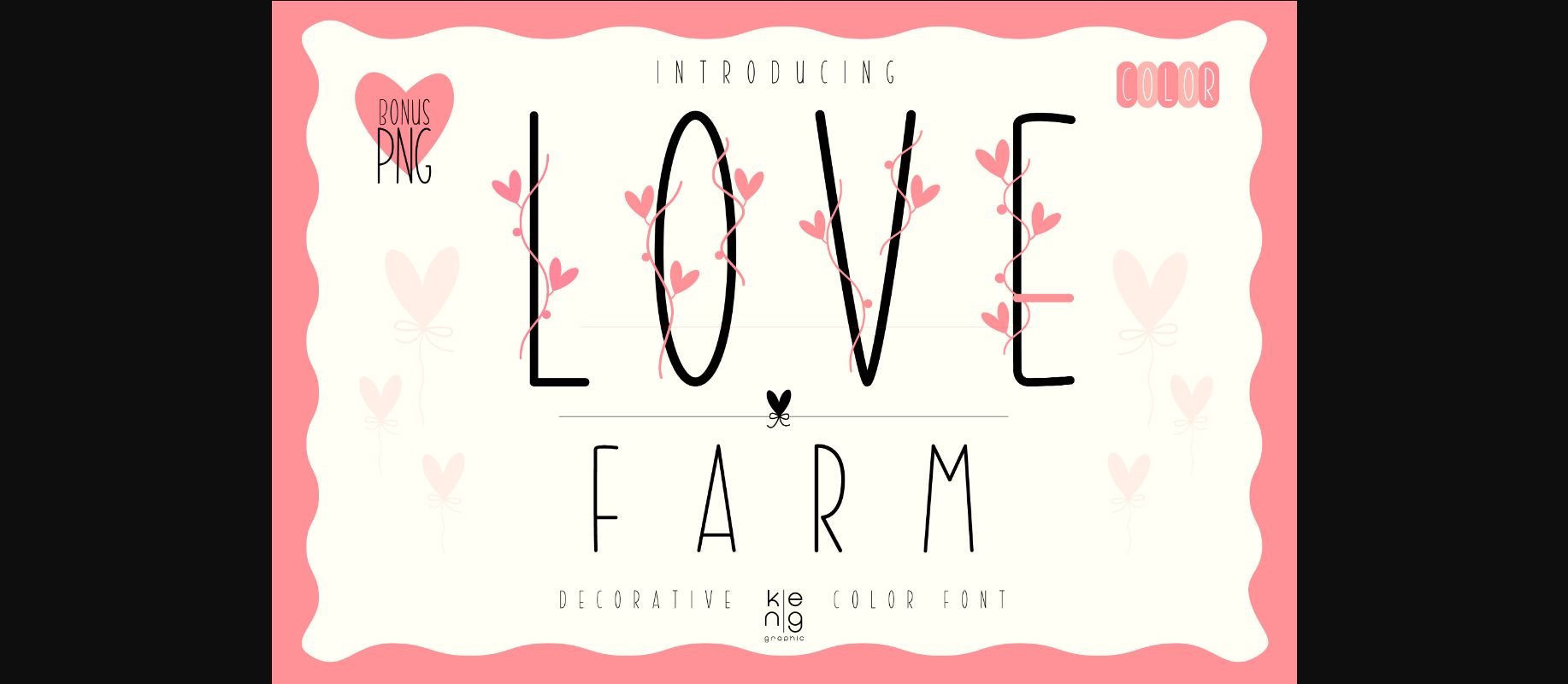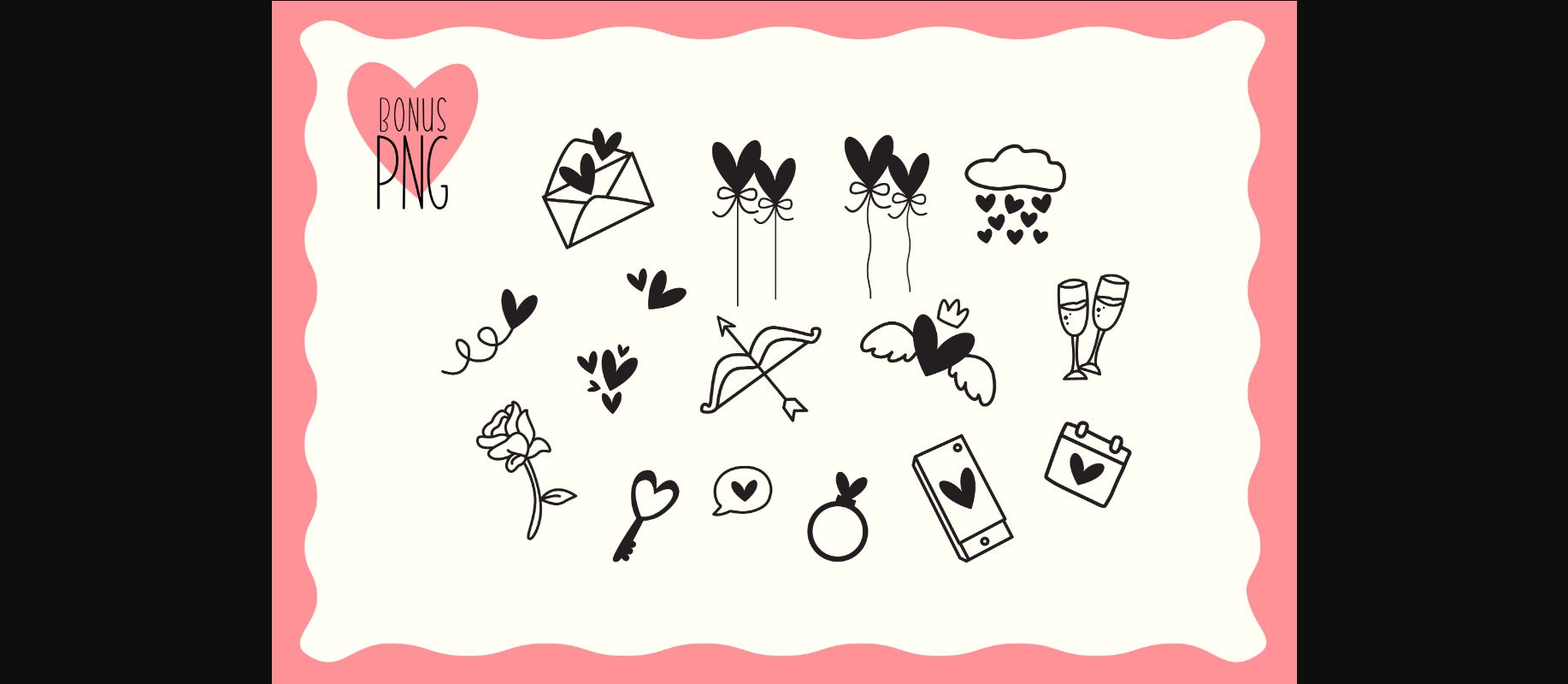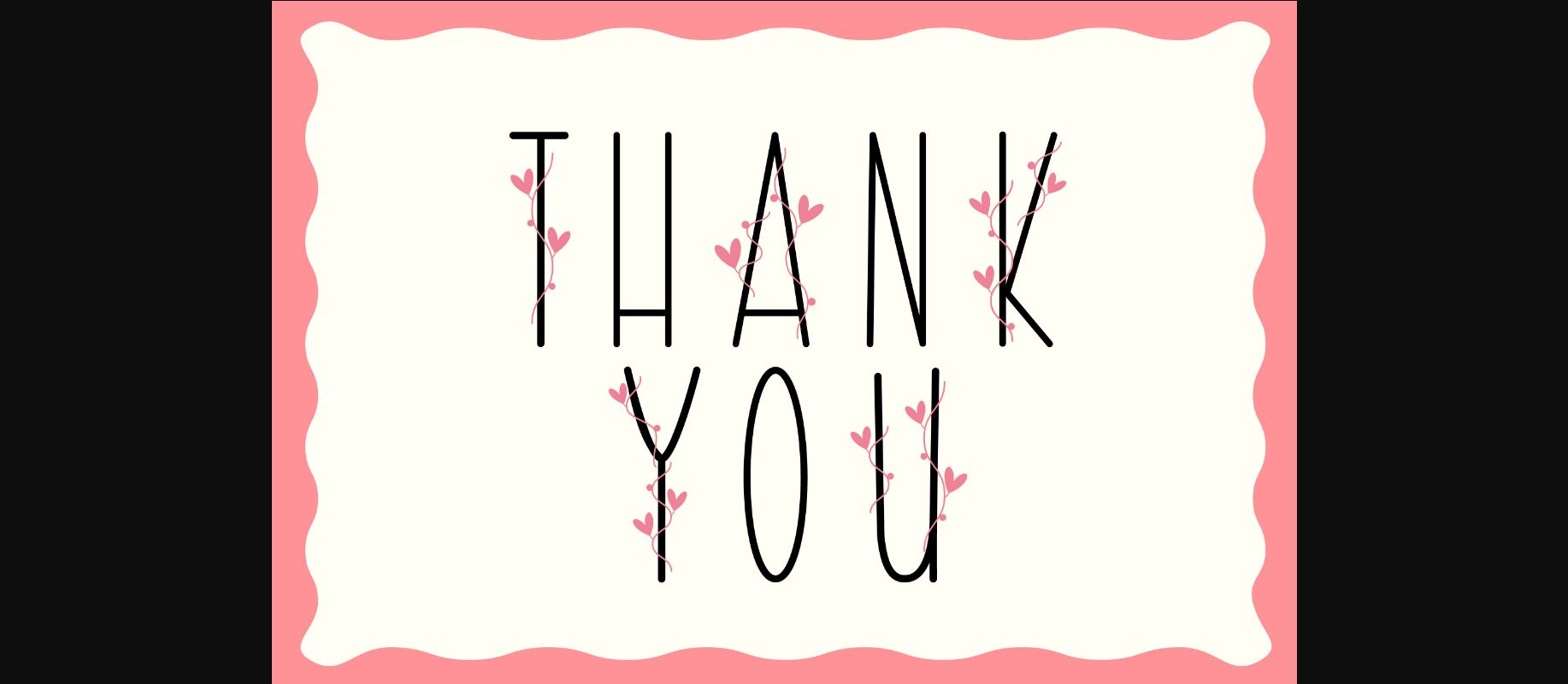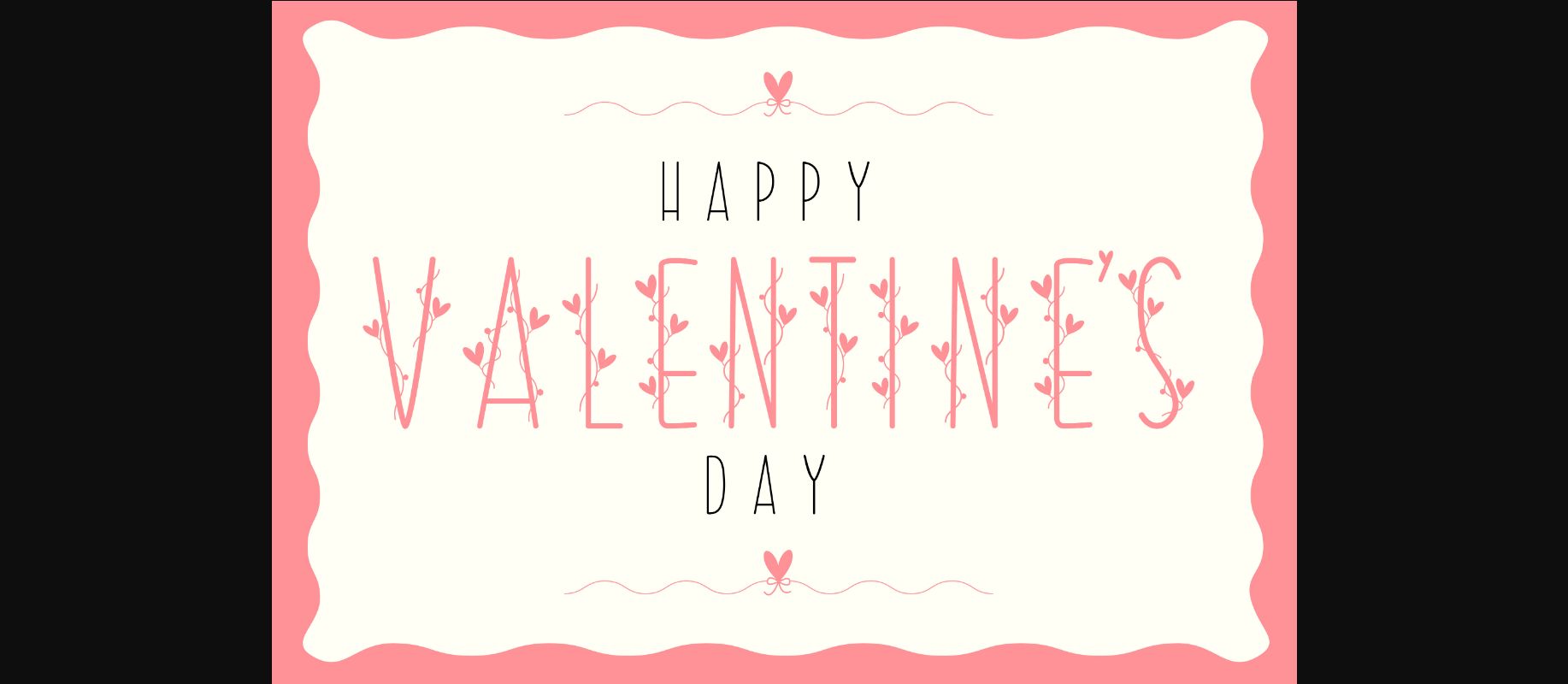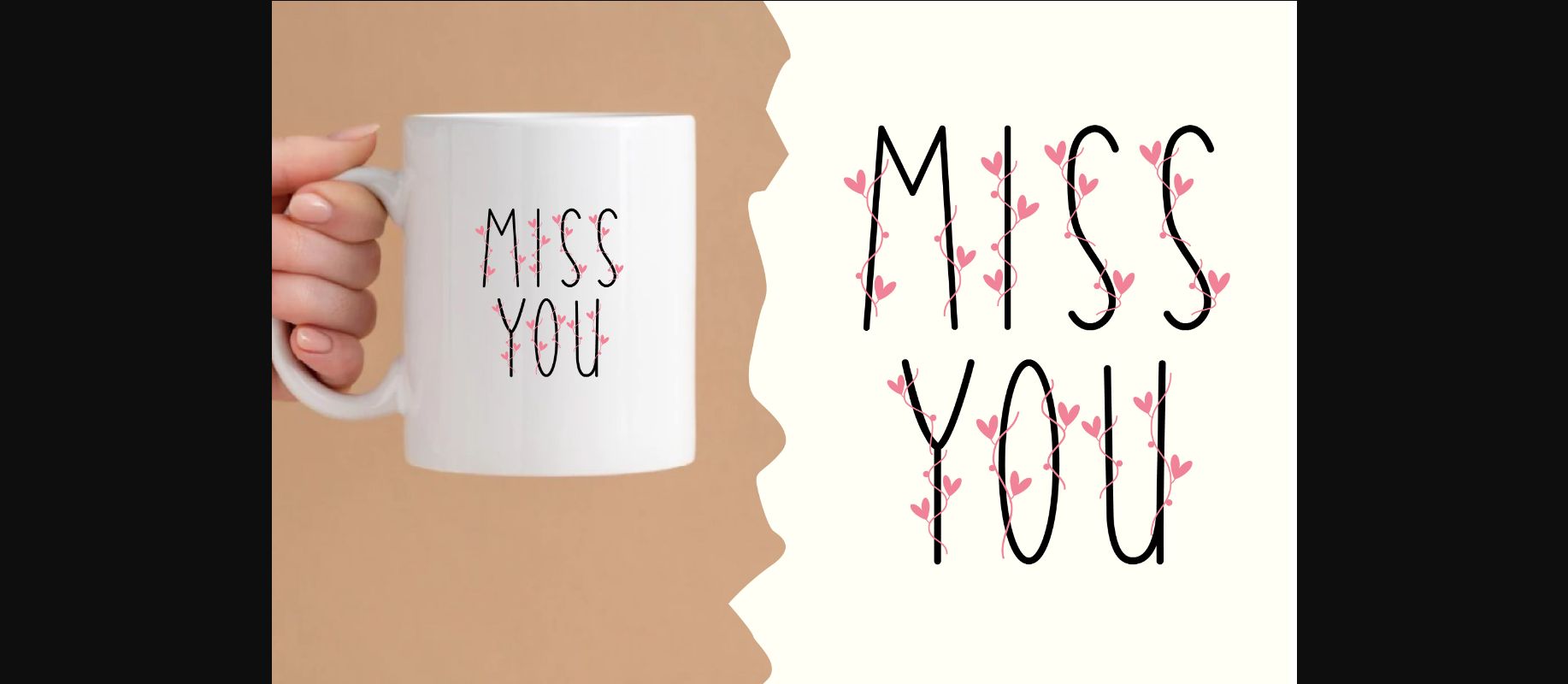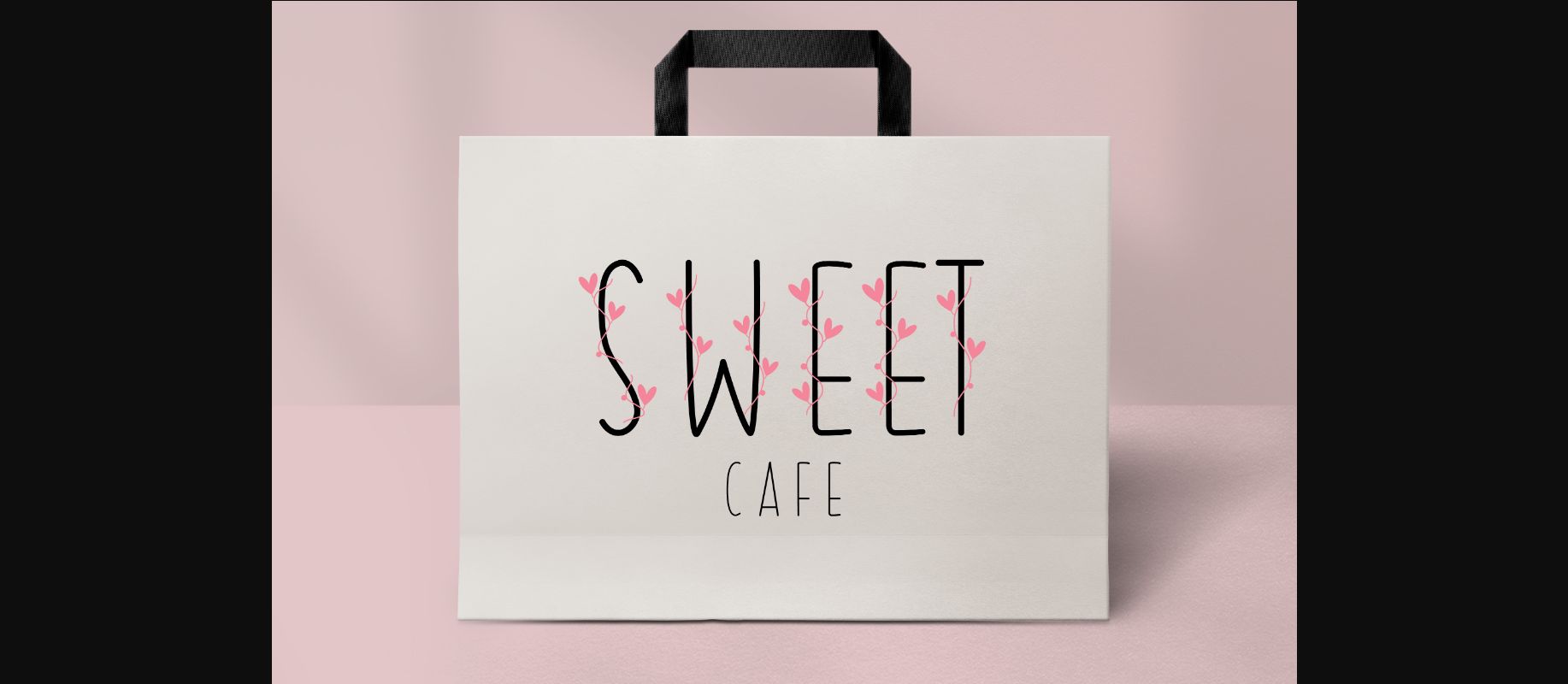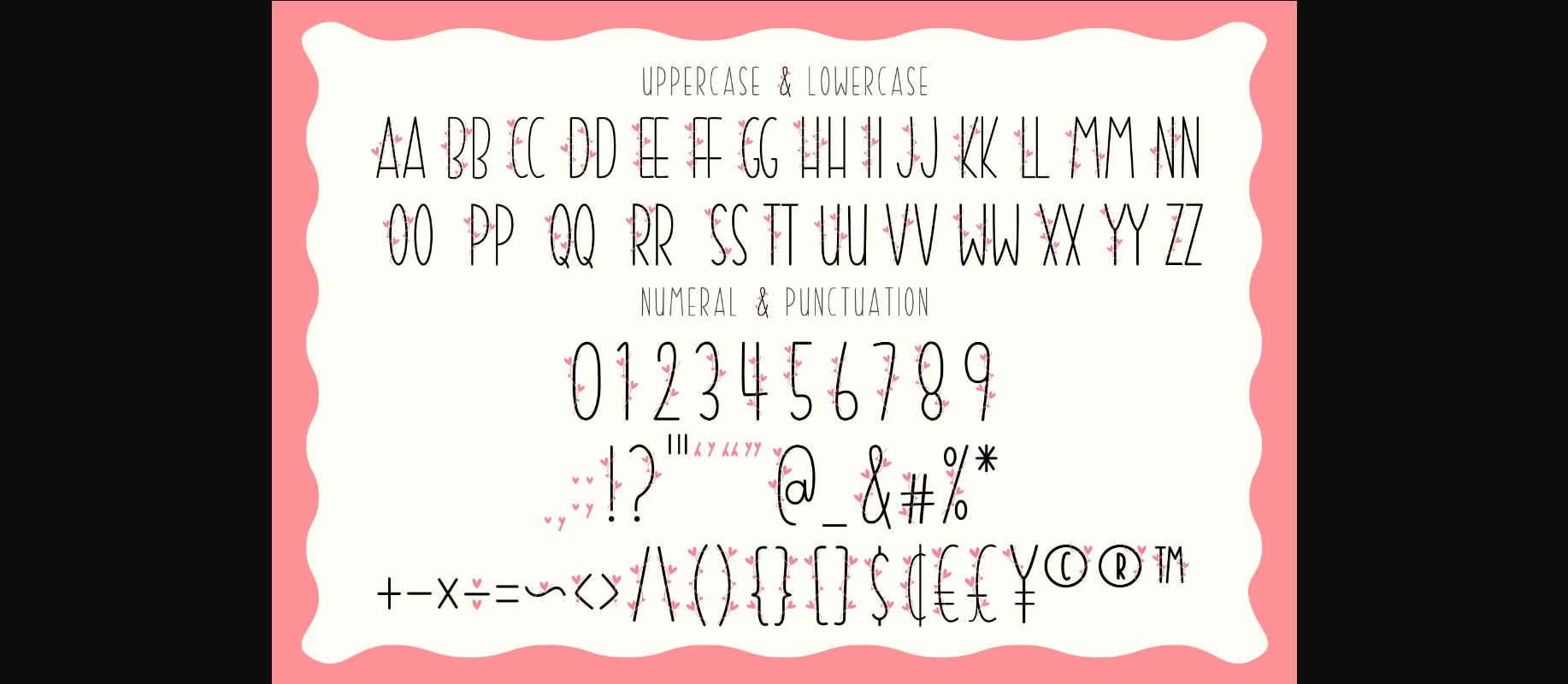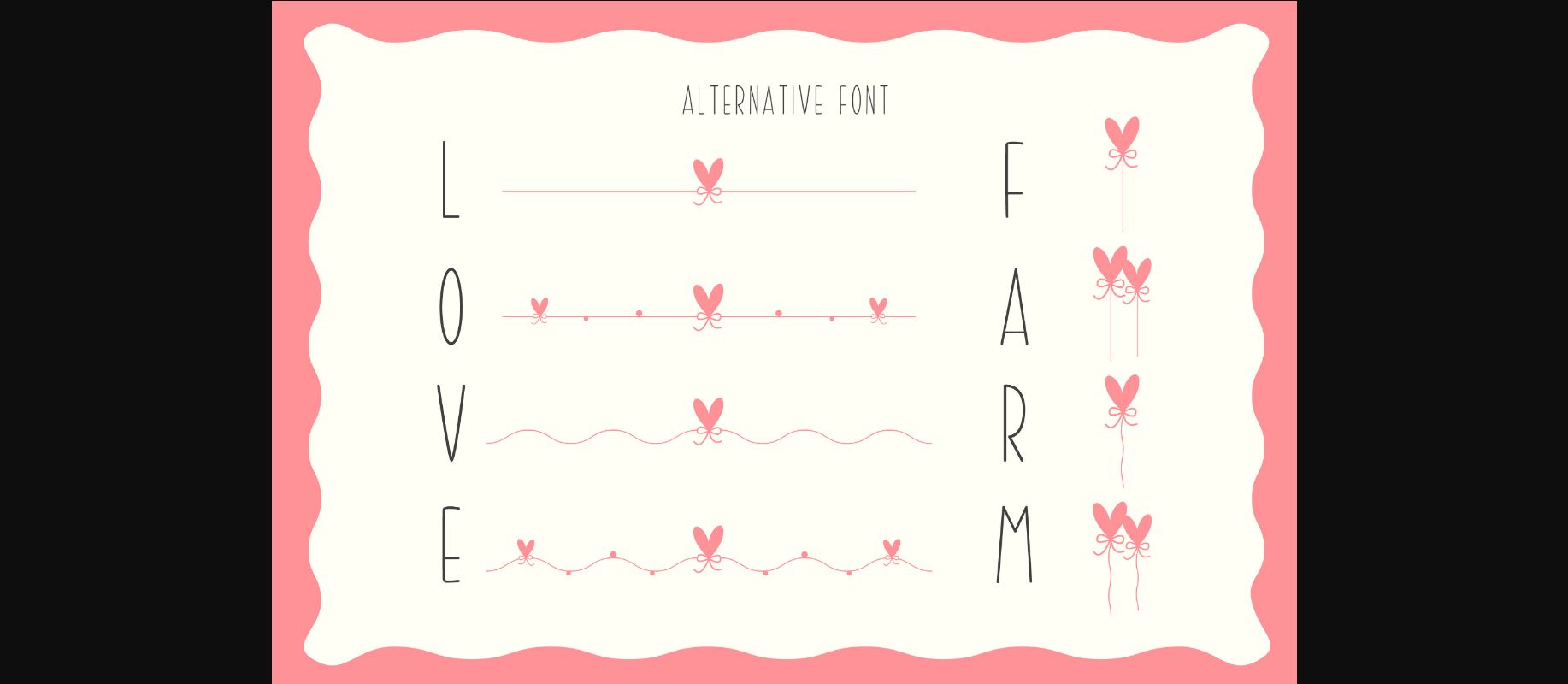
Love Farm Font
About Love Farm Font
Love Farm is a minimal modern decorative font with a great punch. Everything written in this font will be instantly recognizable and will attract attention. It will work great for comic book style, online games, cards, love shirts, posters, movie titles, eye-catching social media posts, or anything that requires youthfulness and courage.